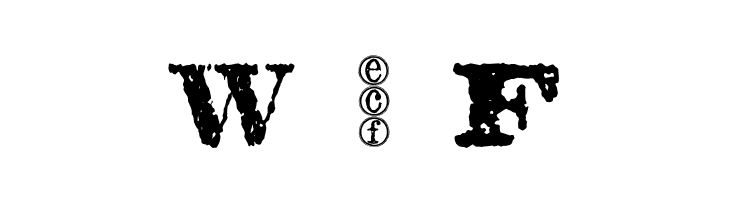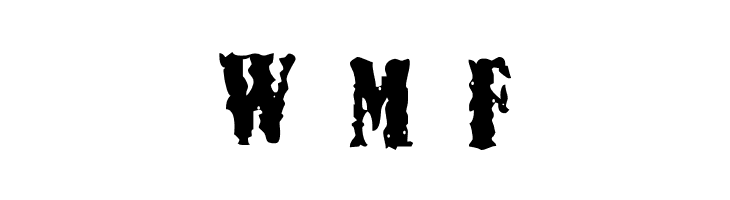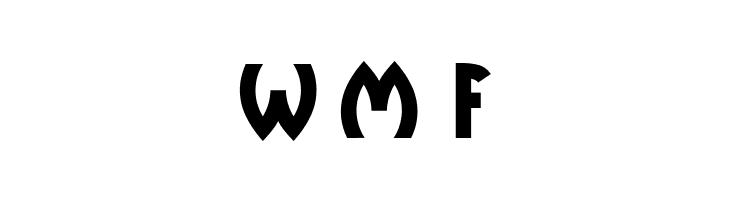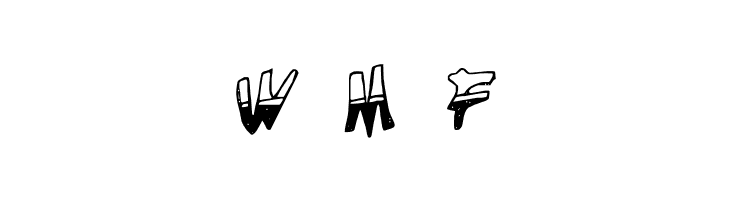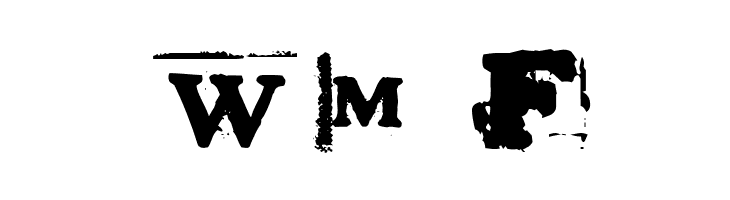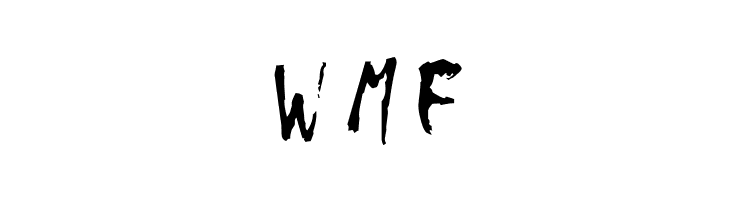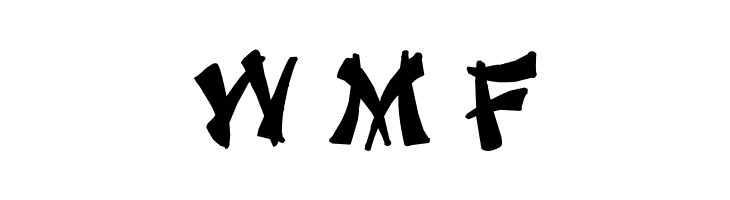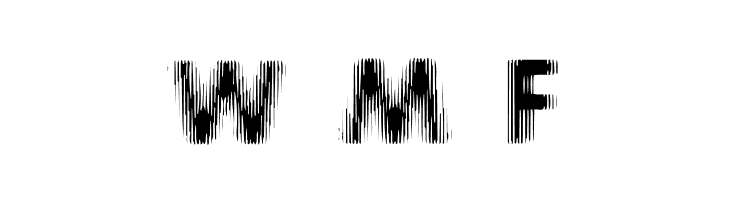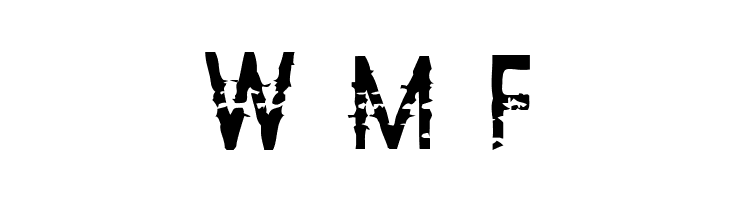
A decorative font with sharp, angular lines and a gothic influence.
A bold, angular font with a gothic and modern aesthetic.
A bold, graffiti-inspired font with a dynamic, street art style.
A distressed, textured font with a vintage, industrial feel.
A bold, distressed font with a grunge, hand-painted style.
A bold, angular font with an urban, edgy style.
A distressed, grungy font with irregular edges and a bold, artistic style.
A bold, distressed font with a rugged, vintage style.
A bold, decorative font with spiky, textured accents for a playful and edgy look.
A bold, distressed font with a grunge, textured style.
A bold, graffiti-inspired font with a dynamic and playful style.
A bold, angular font with a dynamic, jagged design.
A bold, dynamic font with blocky, irregular characters and a retro comic book style.
A bold, distressed font with a grunge texture, perfect for rugged and edgy designs.
A bold, distressed font with a cracked, rugged texture.
A distressed, grunge-style font with bold, textured characters.
A distressed, grunge-style font with a textured, aged appearance.
A grunge-inspired font with dripping, chaotic strokes for a rebellious look.
A rugged, distressed font with a hand-drawn, eroded appearance.
A bold, distressed font with a grunge texture and rugged, urban style.
A distressed, grunge-style font with a bold, rugged appearance.
A bold, distressed decorative font with a grunge aesthetic.
A bold, jagged, and distressed decorative font with a chaotic and intense style.